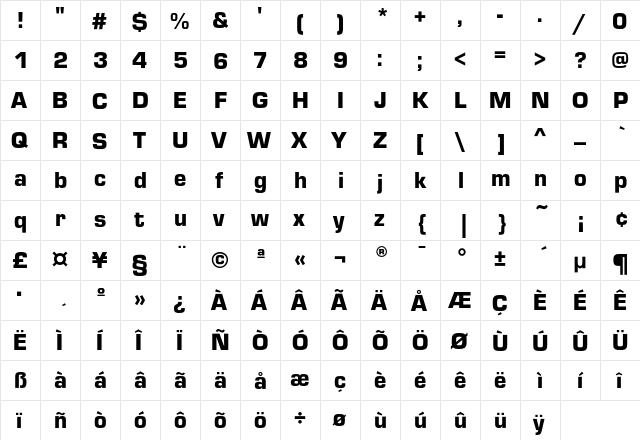
EurostileEF Black Font Preview
EurostileEF Black
EurostileEF Black Font Details
Design Context for EurostileEF Typeface
EurostileEF is a composed and adaptable typeface that performs quietly and consistently across a wide range of design contexts.